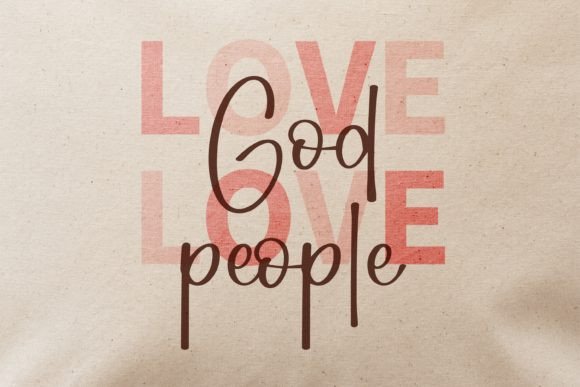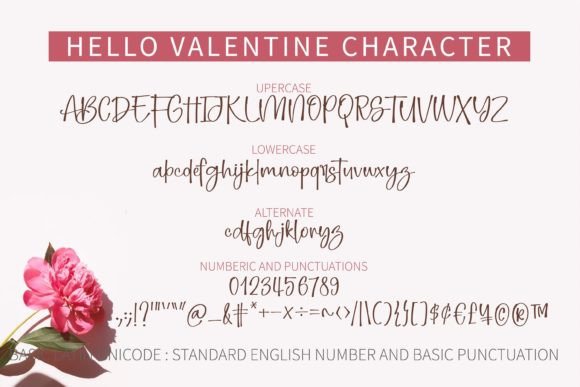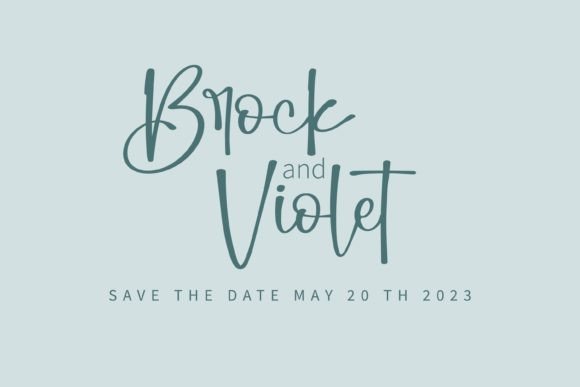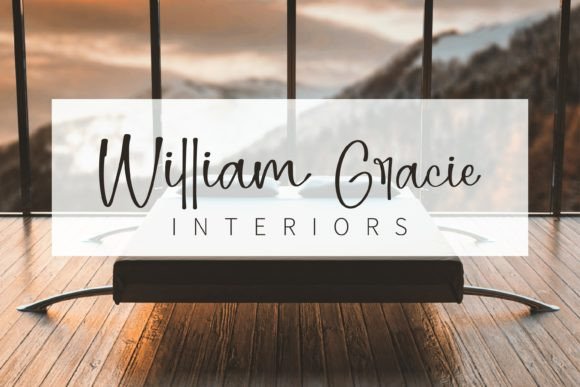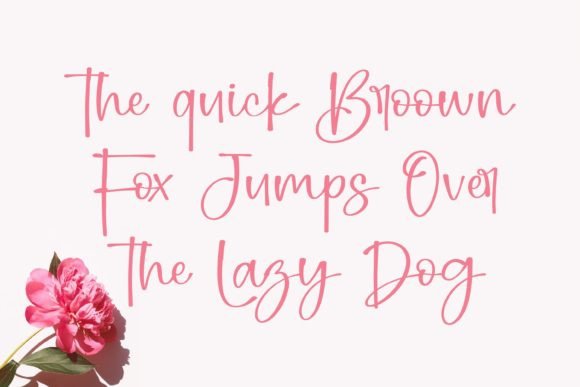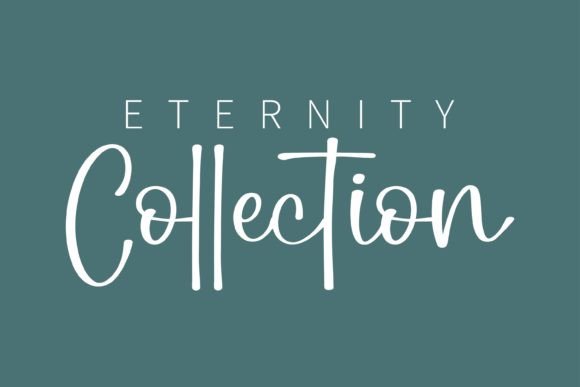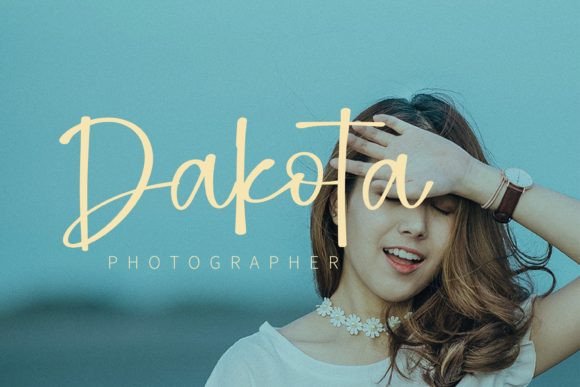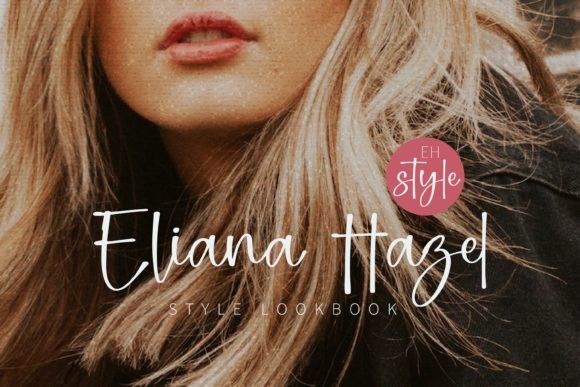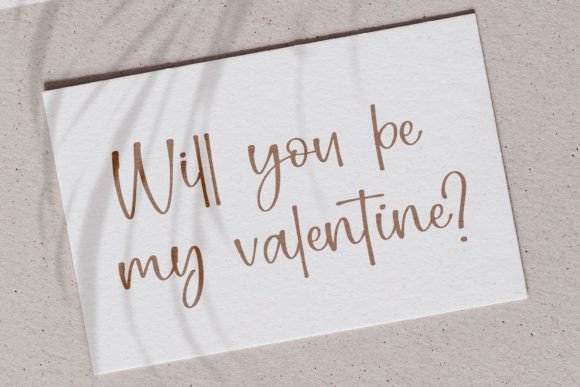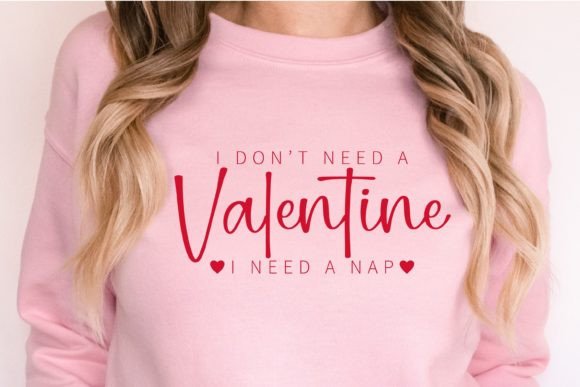
Hello Valentine Font
About Hello Valentine Font
Hello Valentine font is an authentic handwritten typeface that radiates romance and charm. Crafted with great care, this font is designed to bring a heartfelt and personal touch to any project. Whether you’re creating wedding invitations, love letters, or branding materials, Hello Valentine will elevate your designs to a new level of elegance and warmth.
Romantic and Authentic Design
The font features flowing strokes and delicate curves, making it feel like genuine handwriting filled with emotion. This romantic style gives your work a sincere and intimate feel, perfect for projects that require a soft, heartfelt aesthetic.
Ideal for Special Occasions and Branding
Hello Valentine font excels in wedding invitations, greeting cards, and anniversary designs. Its authentic handwritten look also works well for logos and branding that want to convey warmth and personal connection. This font’s versatility ensures it fits beautifully in both print and digital formats.
Perfect for Creative Projects
This font adds a sophisticated yet approachable character to your creative ideas. Use it in social media graphics, posters, or personalized gifts to create designs that feel genuine and meaningful. Its readability combined with elegance makes it an excellent choice for diverse design needs.
Why Choose Hello Valentine Font?
Hello Valentine font offers the perfect balance between romance and authenticity. Its handcrafted style brings personality and charm, making every project truly unique. If you want a font that expresses heartfelt emotion with grace, this is the ideal choice.
Enhance Your Designs with Hello Valentine
Incorporate Hello Valentine font into your font library and watch your creative projects come alive with romance and elegance. This font will quickly become a favorite for anyone seeking to add a special, personal touch to their work.